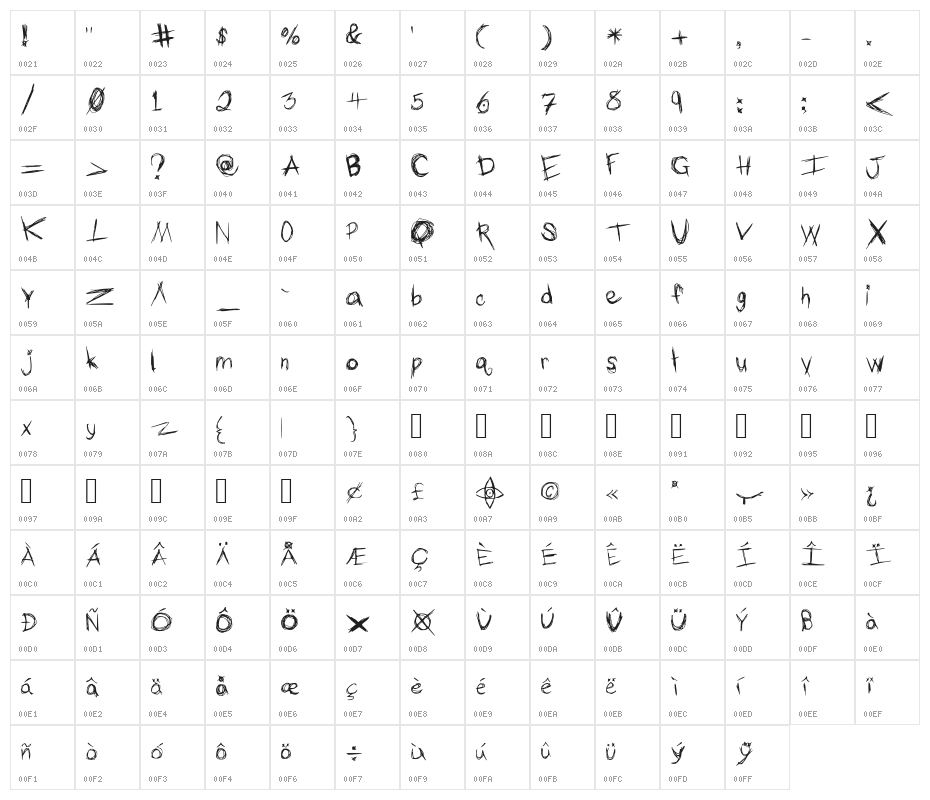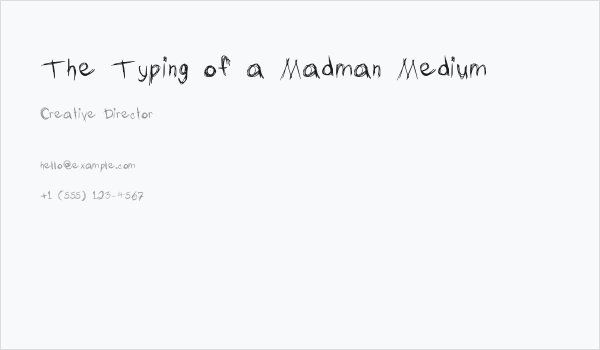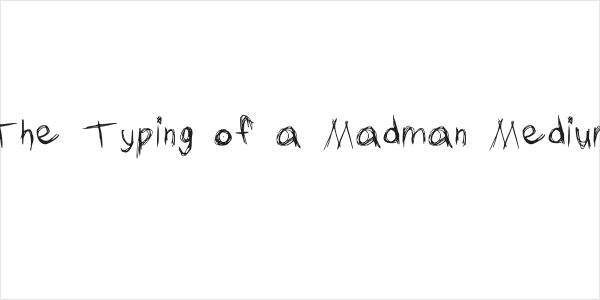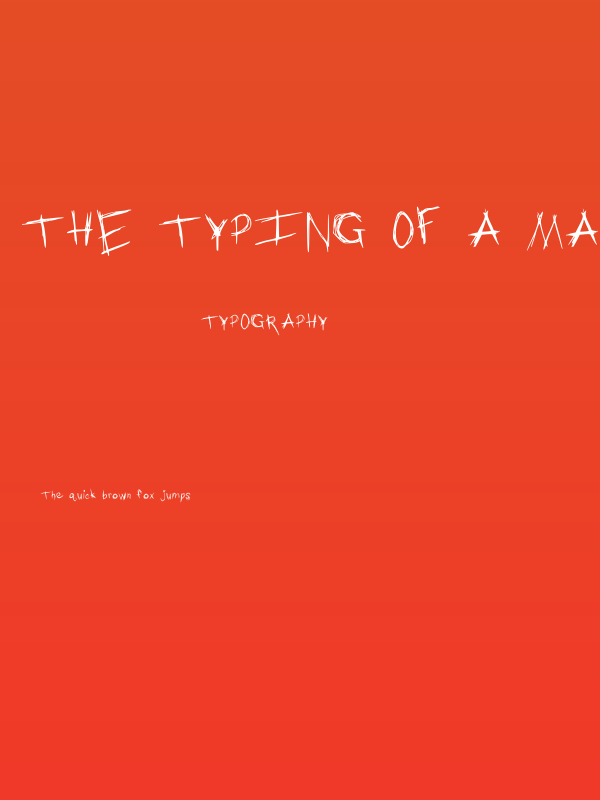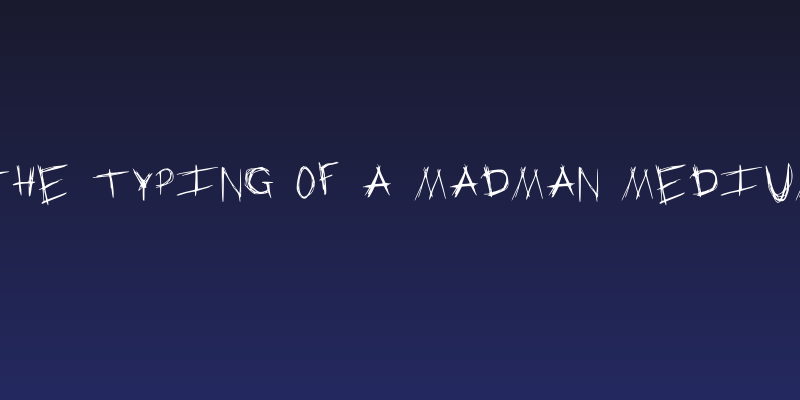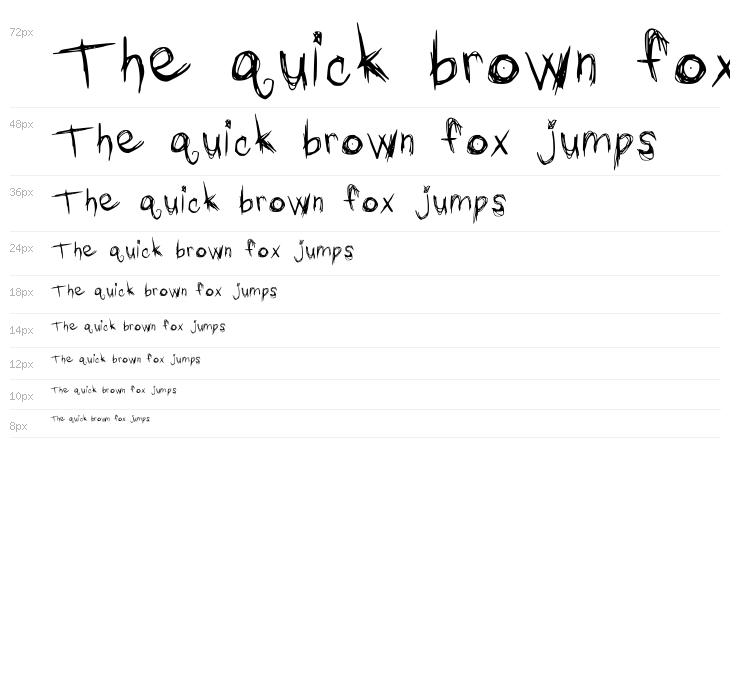
The Typing of a Madman Medium Font
The Typing of a Madman Medium Description
This font exudes a chaotic and expressive style, reminiscent of frantic handwriting. Each character is uniquely crafted with irregular strokes and varying thickness, giving it a raw, edgy appearance. The letters are jagged and uneven, creating a sense of urgency and intensity. The uppercase and lowercase letters maintain a consistent aesthetic, with exaggerated curves and sharp angles. Numbers and special characters follow the same erratic design, enhancing the overall theme of disarray. This font captures a sense of madness and creativity, making it stand out with its bold and unconventional look.
| Use Case | Headlines, Posters, Album covers |
| Proposed Projects | Ideal for horror-themed posters, edgy graphic designs, album covers, or any project requiring a sense of chaos and creativity. |